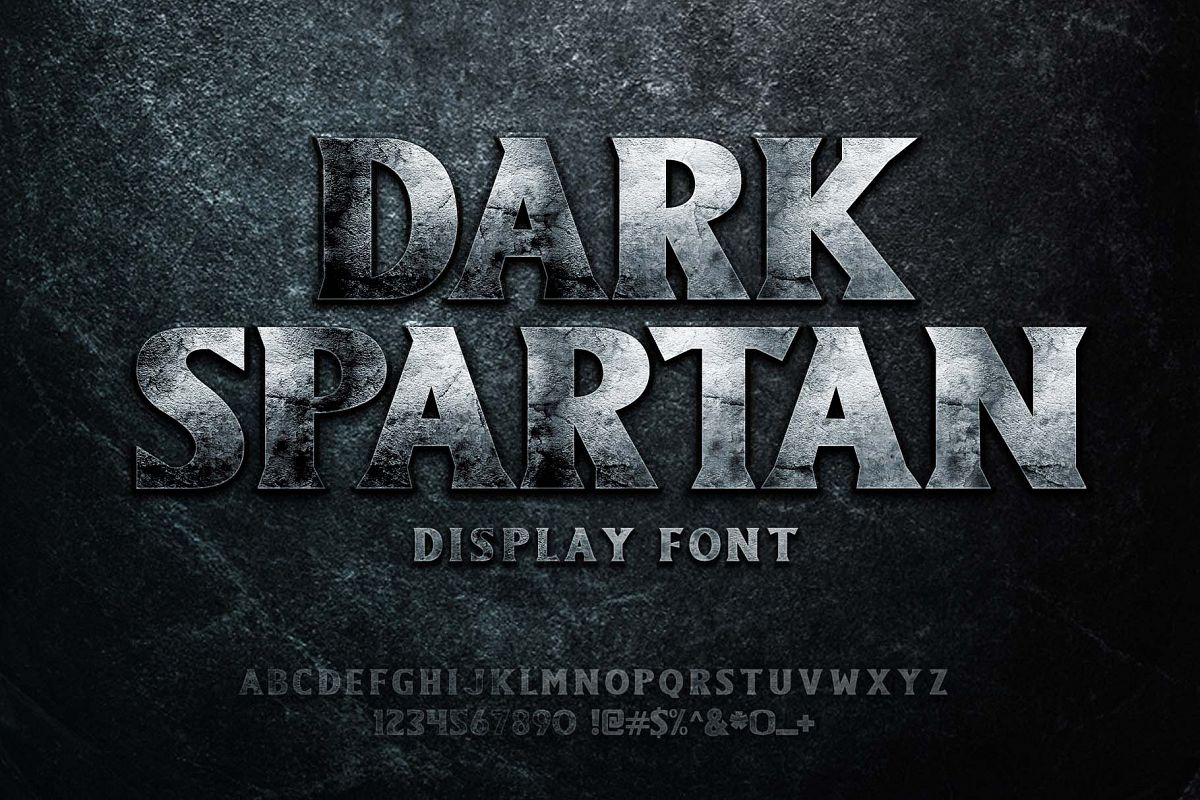
Dark Spartan Display Font
Dark Spartan
Here we have a strong, eye-catching, awesome and powerful dark spartan display font for sale that will fit well in any great gaming clan, eSports team, YouTube channel, Twitch channel or gaming stream brand.